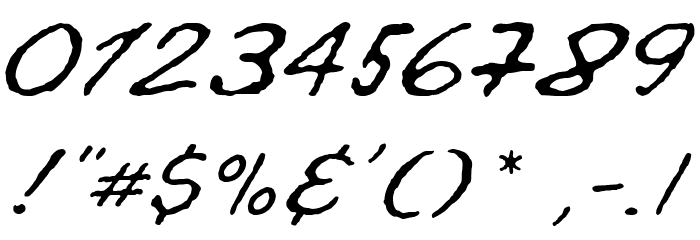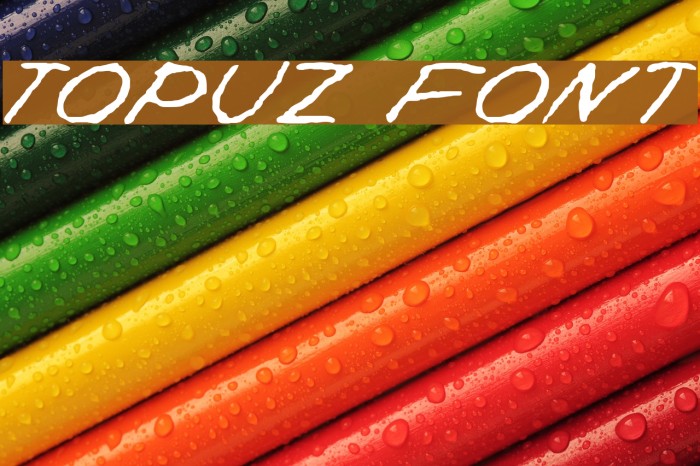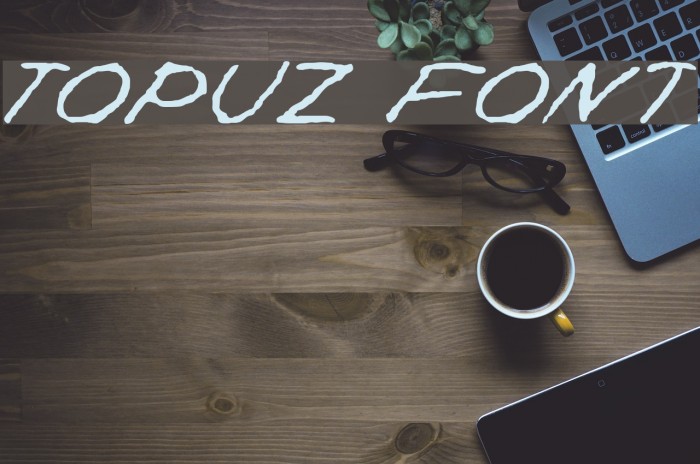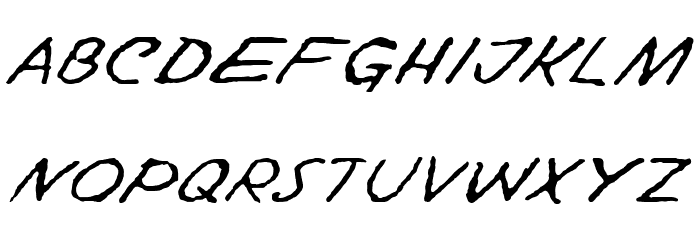
Topuz Font
This font exudes a dynamic and energetic feel with its handwritten style, characterized by fluid strokes and a slightly slanted orientation. The letters are crafted with a natural flow, mimicking the spontaneity of cursive handwriting. Each character is distinct yet maintains a cohesive look, making it suitable for conveying a personal touch. The uppercase and lowercase letters are well-balanced, with a consistent stroke width that adds to its legibility. The numerals and special characters follow the same stylistic approach, ensuring uniformity across all elements.
A dynamic handwritten font with fluid strokes and a personal touch.
• Proposed Projects: Ideal for personal branding, greeting cards, invitations, and creative projects that require a handwritten aesthetic.
• Category: Handwritten
• Contrast: Low
• Overall Style: Casual, Personal
• Use Case: Logos, Invitations, Personal Branding